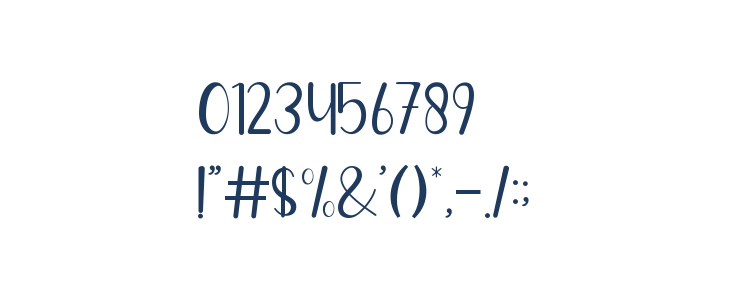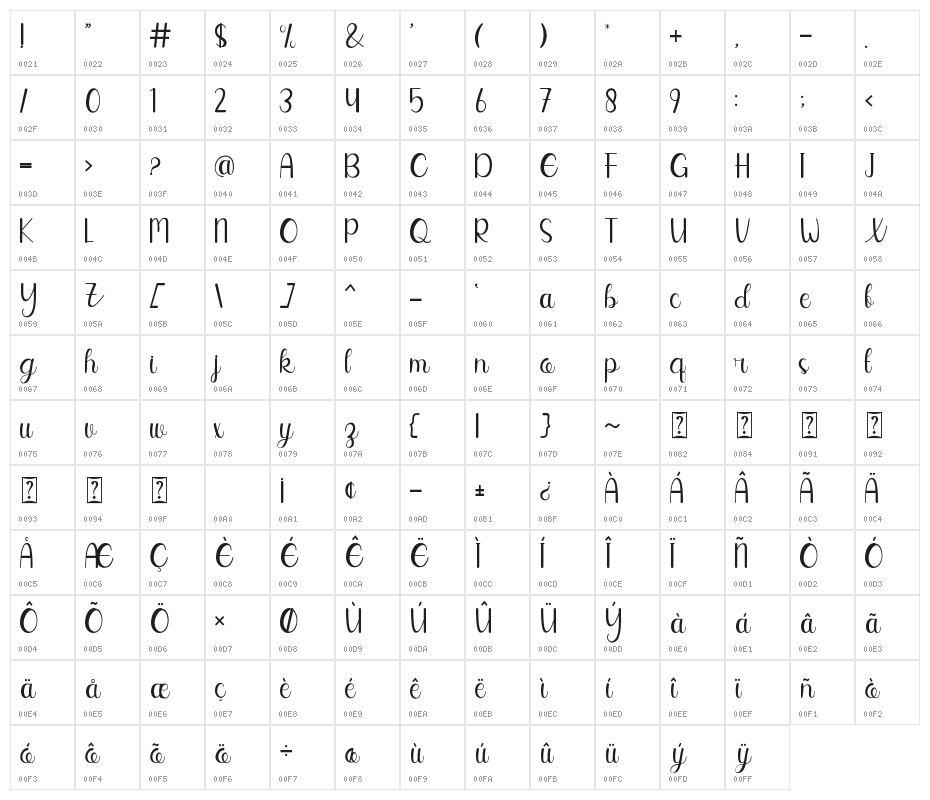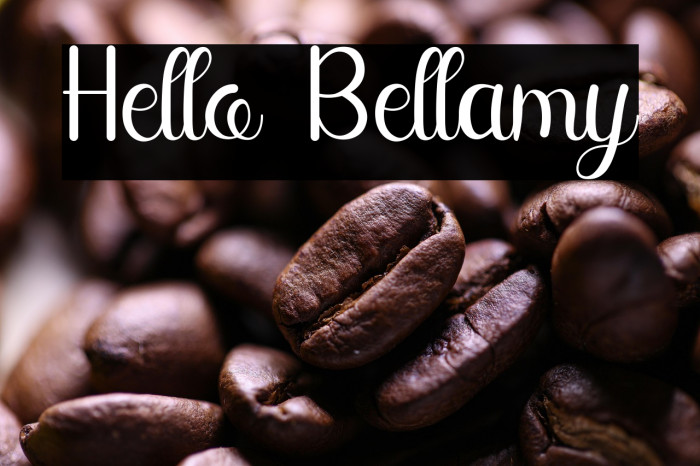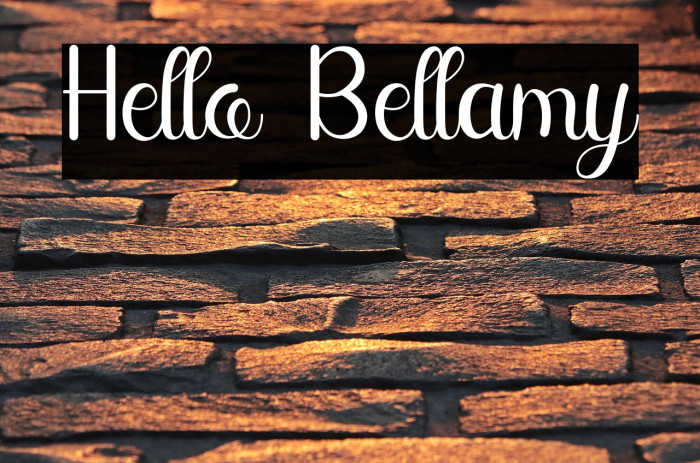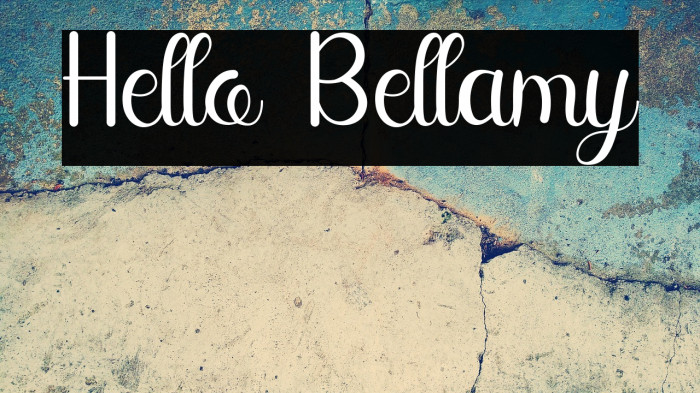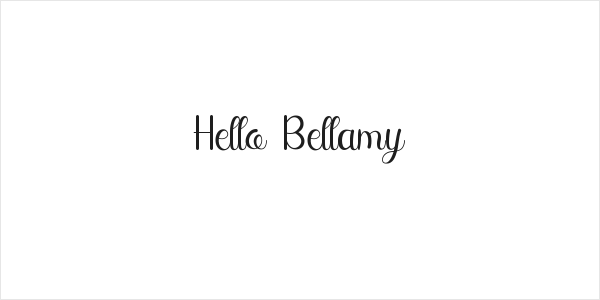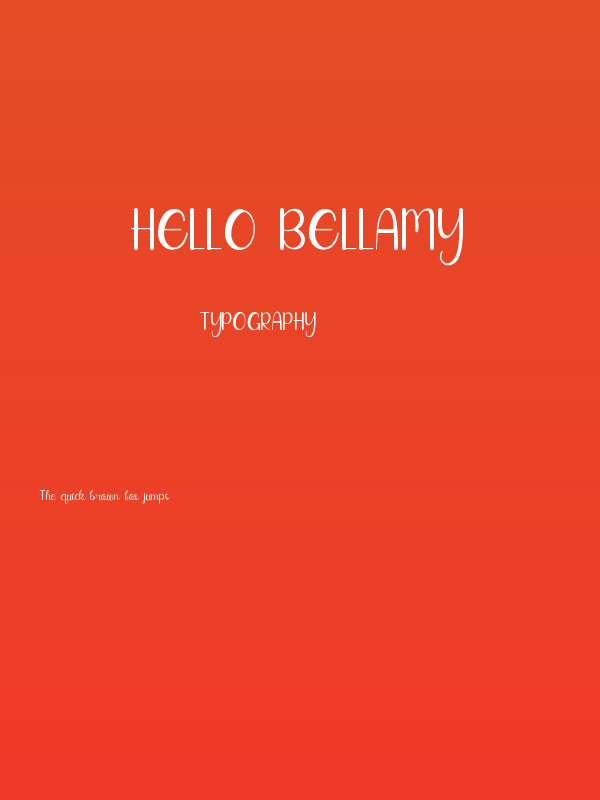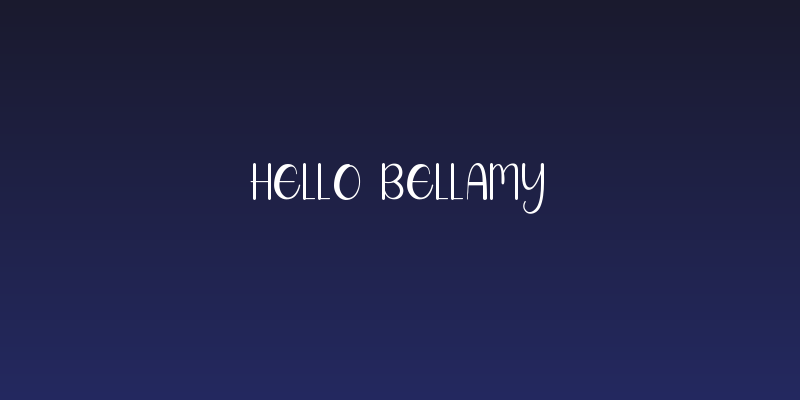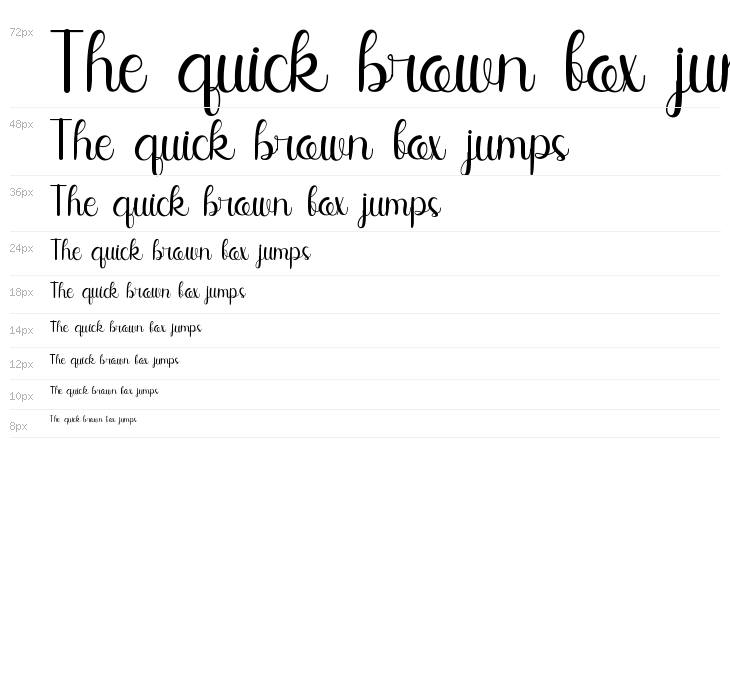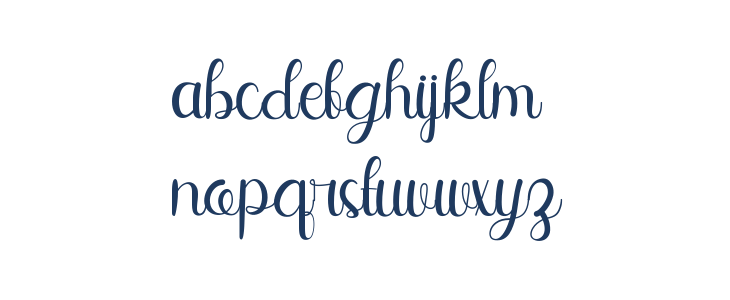
Hello Bellamy Font
Hello Bellamy Description
This font features a playful and elegant design, combining elements of both script and sans-serif styles. The uppercase letters are characterized by their tall, narrow forms with subtle curves, giving them a graceful appearance. The lowercase letters exhibit a more fluid and cursive style, with smooth connections between strokes, adding a touch of sophistication. The numerals are clean and straightforward, maintaining the overall aesthetic of the font. Special characters are thoughtfully designed to complement the letterforms, ensuring a cohesive look. This font's unique blend of styles makes it versatile for various design applications.
Use CaseHeadlines, Logos, Invitations
Proposed ProjectsIdeal for wedding invitations, greeting cards, branding projects, and elegant packaging designs.